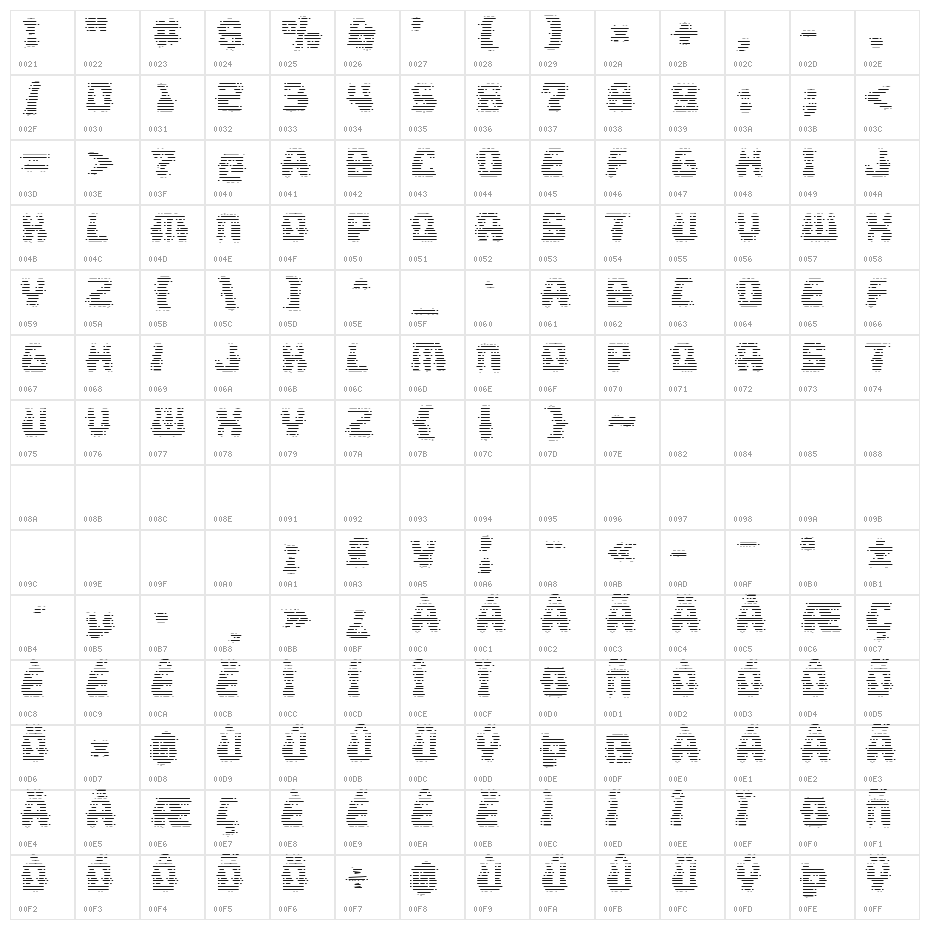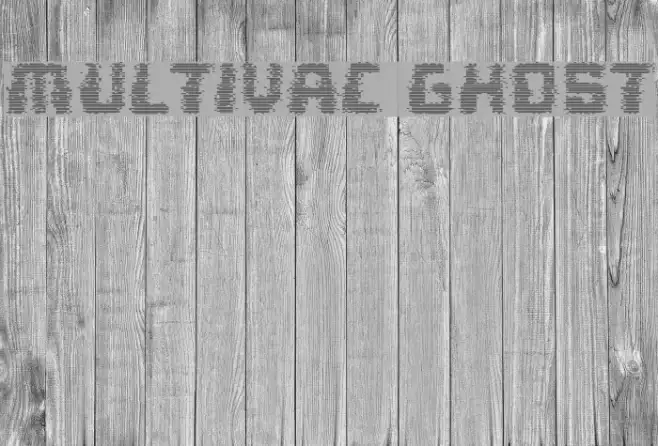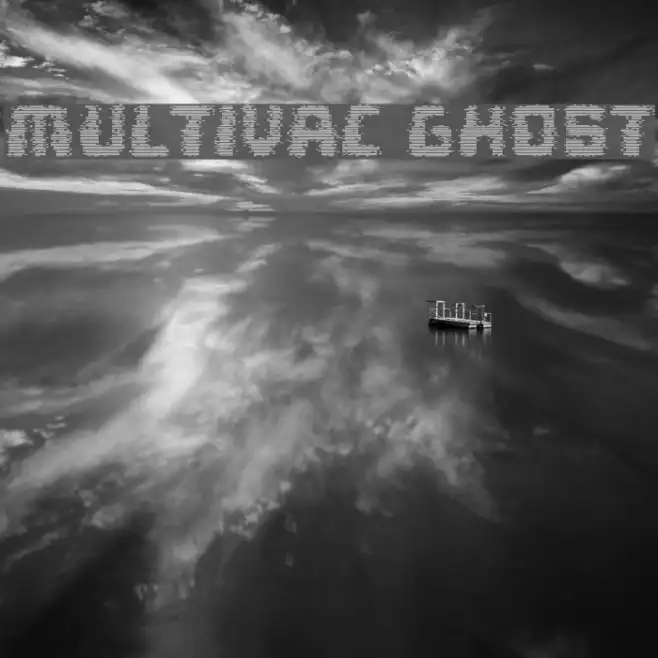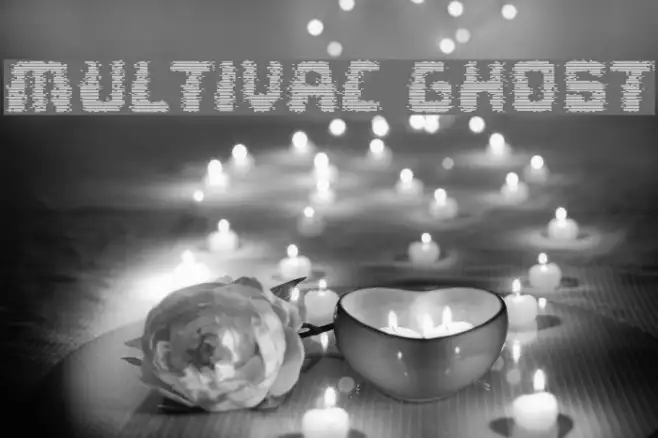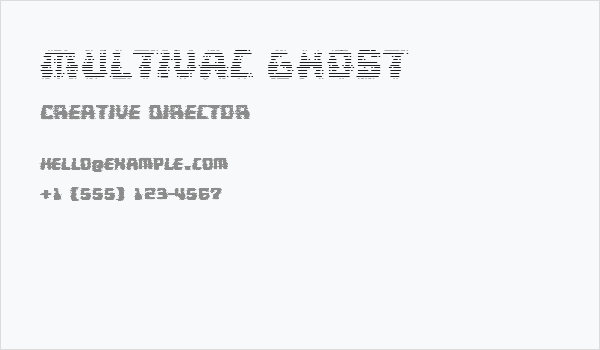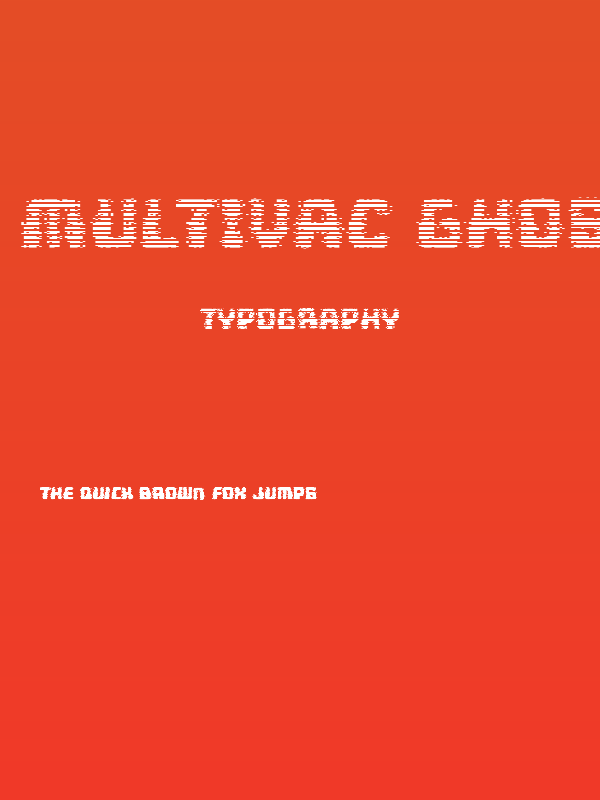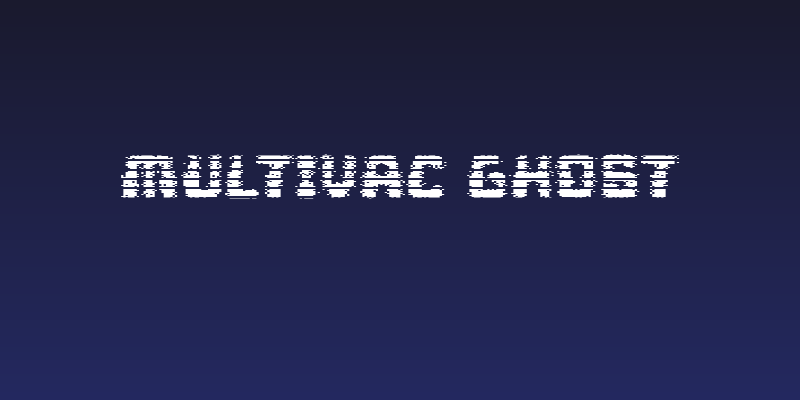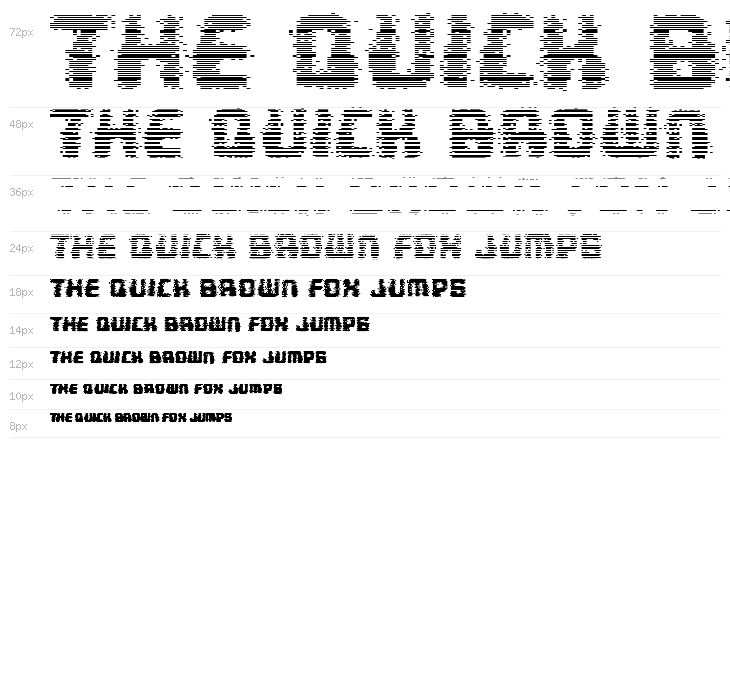
Multivac Ghost Font
Multivac Ghost Description
This font features a unique, futuristic design characterized by horizontal lines that create a ghostly, digital effect. The characters are bold and structured, with a consistent width that gives a monospaced appearance. The horizontal lines create a sense of movement and dynamism, making it stand out as a display font. Each letter and number is distinct, with a modern aesthetic that suggests a high-tech or digital theme. The special characters maintain the same stylistic approach, ensuring uniformity across the entire set. This font is ideal for projects that require a cutting-edge, technological feel.
| Proposed Projects | Ideal for tech-themed posters, video game graphics, sci-fi book covers, and digital interfaces. |